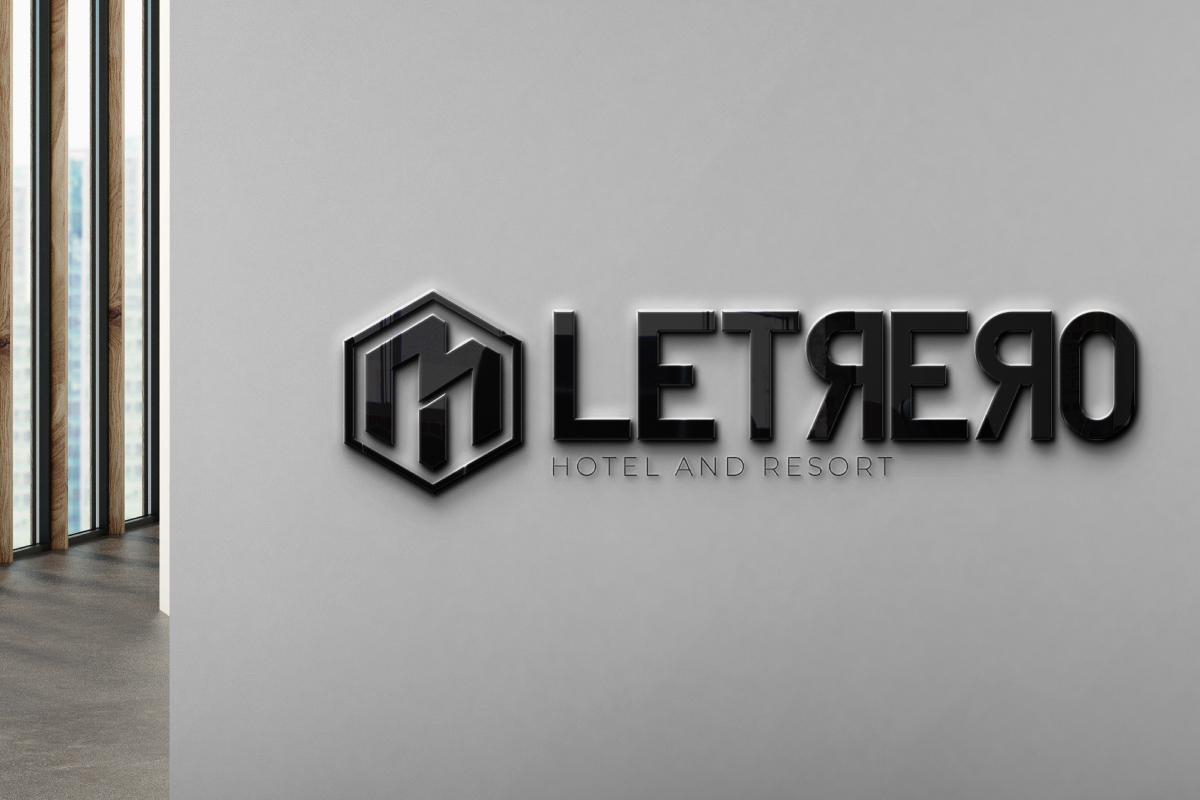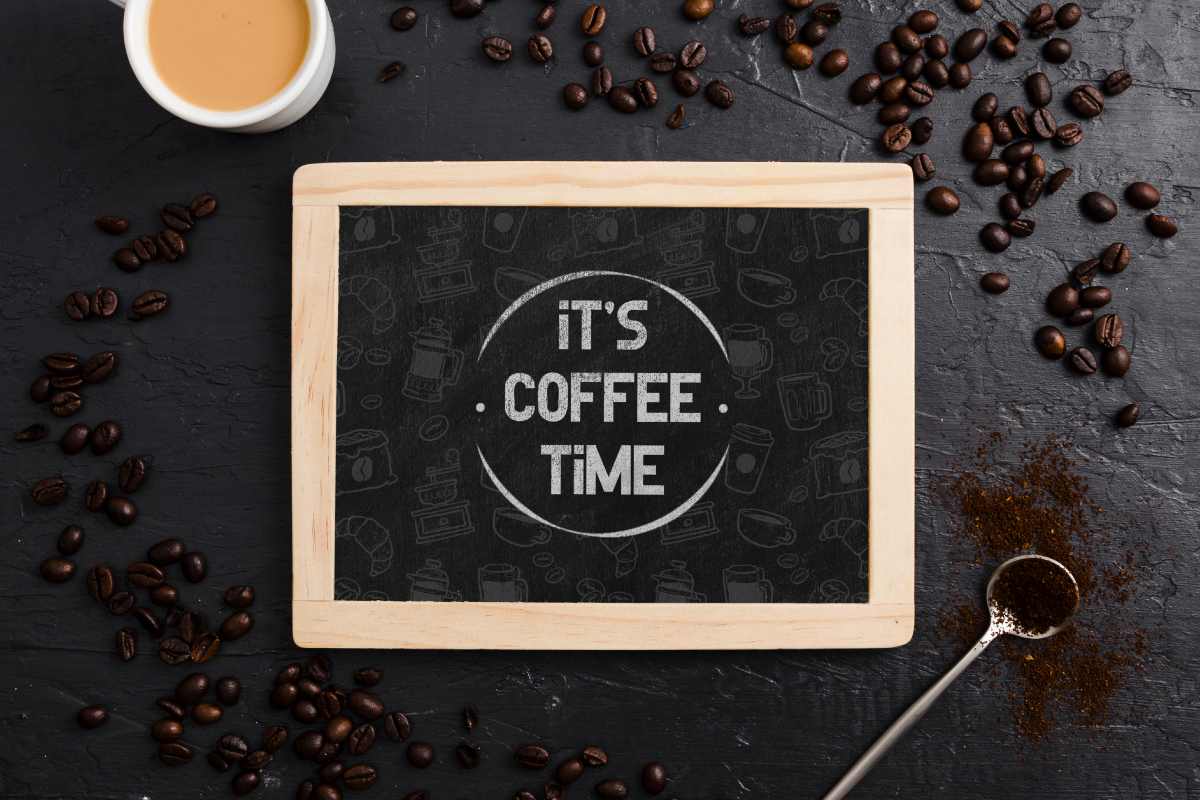
Reversed Sans Serif Font
This is a modern and stylish sans serif display font with energic style on its letters. This font also bring futuristic vibes while easily to read. It will be amazing for many business and industries including startup companies, corporate brands, technology related, gaming industries, finance and banking, and many others.